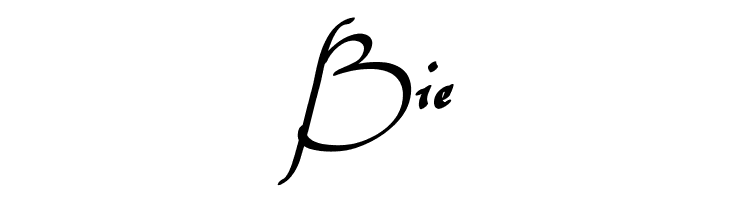
A playful, hand-drawn font with a textured, chalk-like appearance.
A flowing and elegant script font with interconnected cursive letterforms.
A bold, expressive brush-style font with dynamic, handcrafted strokes.
An artistic, cursive font with flowing, decorative elements.
A bold, runic-style font with a textured, ancient appearance.
A hand-drawn, sketch-style font with textured outlines.